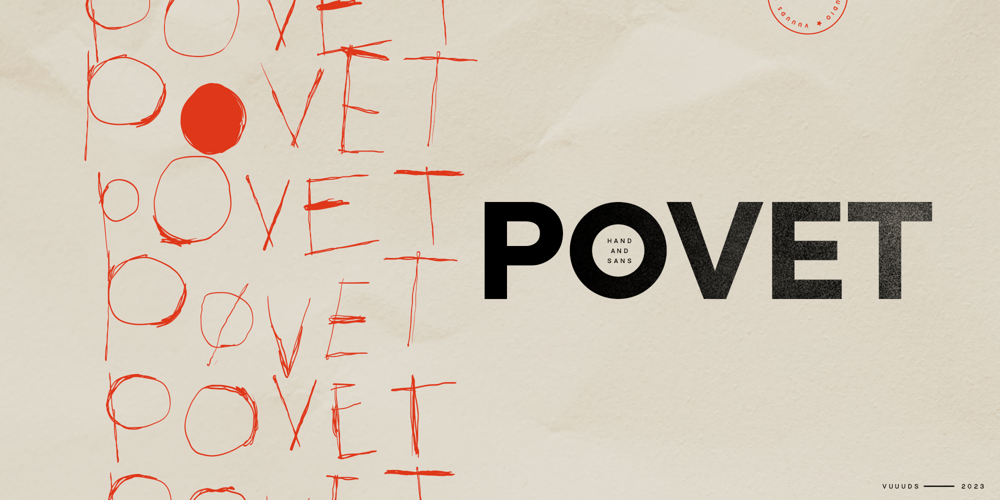
Povet Font Family was designed by Agung Syaifudin and published by vuuuds. Povet contains 2 styles and family package options. Introducing Povet Font Duo!Povet is modern experimental font duo casual handwritten and sans serif style, every single letters have been uniquely crafted.This font including beautiful alternate glyph. You can access the alternate glyph via Font Book (Mac user) or Windows Character Map (Windows user), I’ve been put the link tutorial inside the zip file.Foreign languages support: ÀÁÂÃÄÅÆÇÈÉÊËÌÍÎÏÐÑÒÓÔÕÖØÙÚÛÜÝàáâãäåæçèéêëìíîïðñòóôõöøùúûüýÿThanks for looking.instagram.com/vuuuds.studio